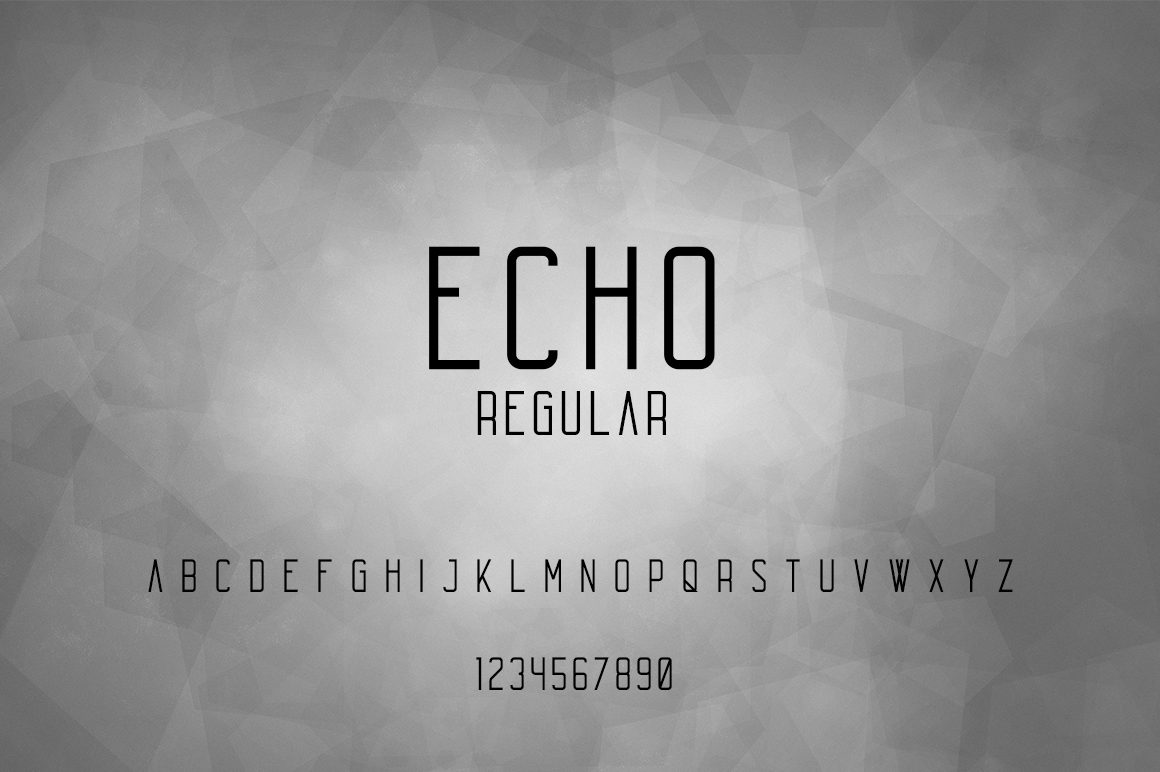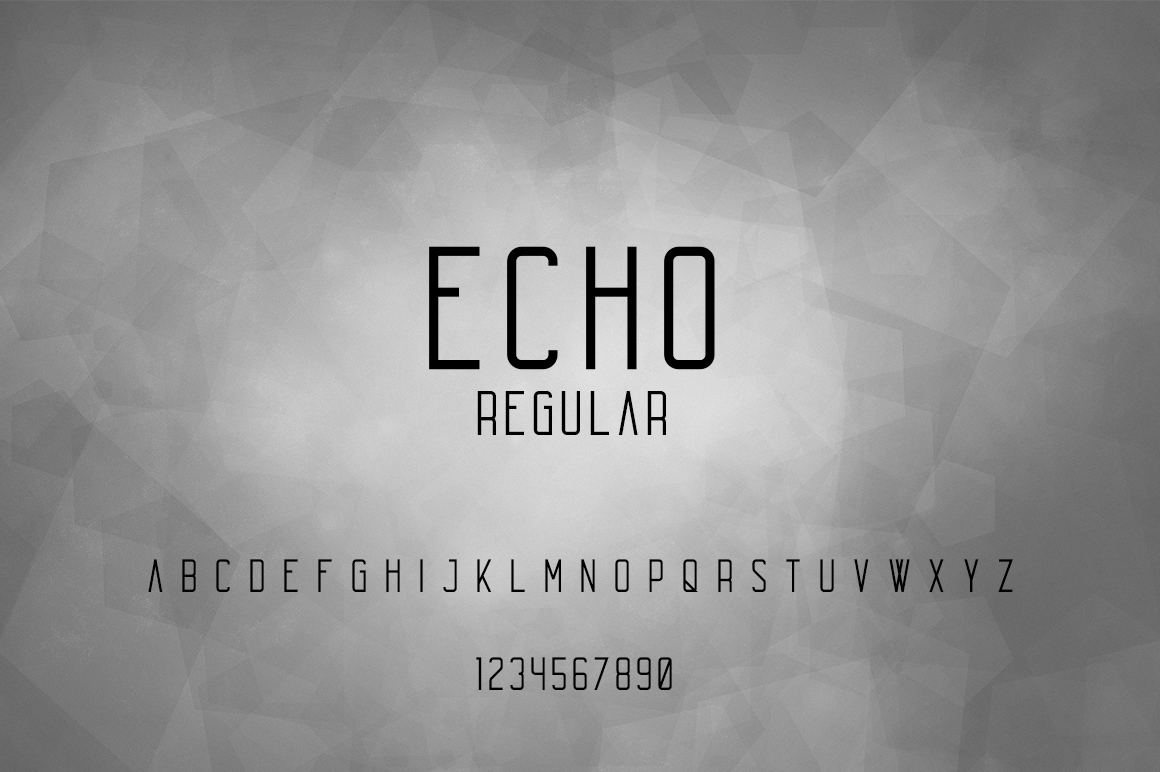
[vc_row][vc_column][pixelo_image images=”77825,77826,77827″][vc_column_text]Echo is bold, powerful sans serif typeface.
Echo is perfect for branding projects, home-ware designs, product packaging, magazine headers – or simply as a stylish text overlay to any background image.
:Vladimir Fedotov